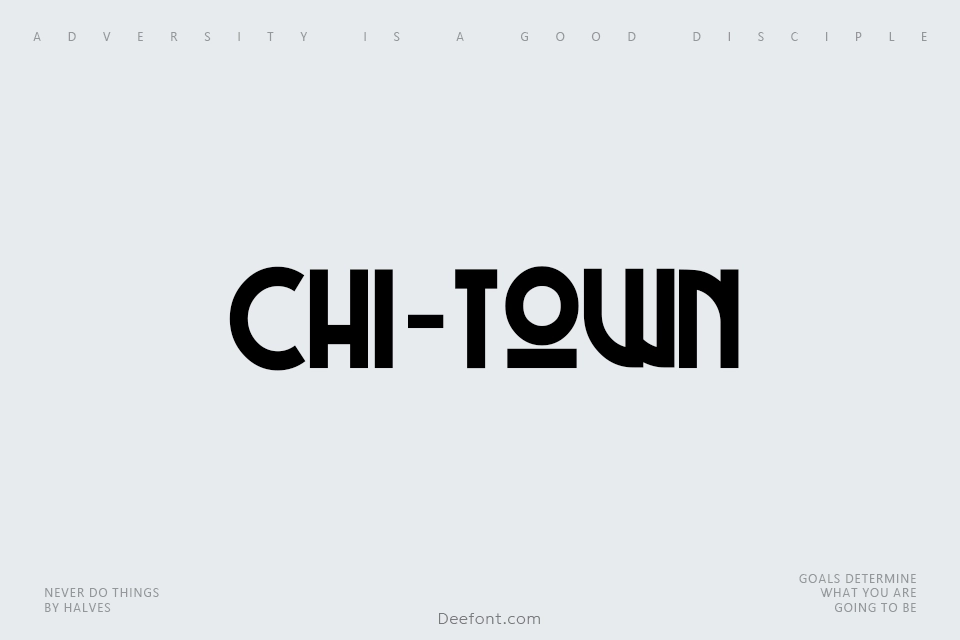
Chi-Town Font
Chi-Town is a bold, retro display font inspired by classic aluminum lettering that graced Chicago buildings. With its gangster-style aesthetic reminiscent of 1920s-1930s design, this versatile typeface delivers striking presence and character. Featuring 399 glyphs and extensive language support, Chi-Town excels in headlines, posters, and creative projects demanding vintage flair and dramatic impact.